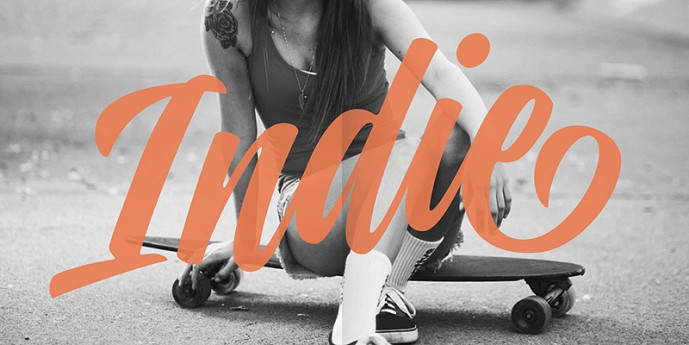
Indie Font
Designer: Maximiliano Sproviero
Indie Font comes in 4 styles plus another one which consists only in capitals. Indie; Indie Shade Solo; Indie Inline are all open-type programmed and have exactly the same glyphs and metrics, so you can combine them without probem. (I.E. You may use Indie Inline, then write the same word using Indie Shade Solo, and finally put them together). In applications such as Adobe Illustrator, the font has nice results when fi ligatures is activated. However, if you want a more casual look, activate the contextual and the decorative ligatures.